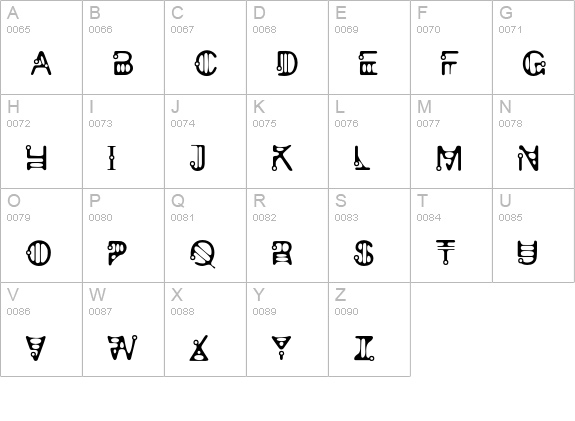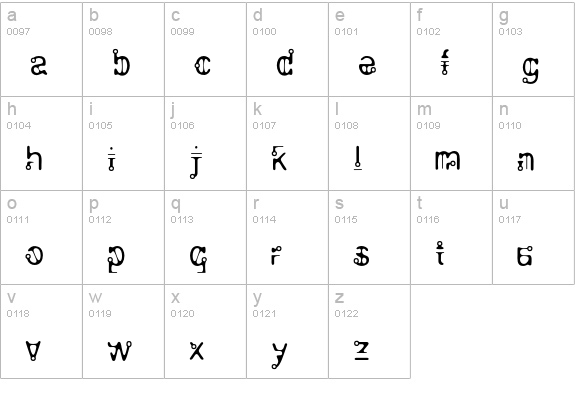
Introducing Generator font, a versatile and modern typeface that is sure to make your designs stand out. This sleek and sophisticated font features clean lines and a stylish aesthetic, making it perfect for a wide range of projects. Whether you're creating a logo, branding materials, or website design, Generator font will add a touch of elegance to your work. What's even better is that Generator font is completely free to download at FontsMarket.com. Yes, you read that right - you can get your hands on this premium font without spending a dime. So why wait? Elevate your designs with Generator font today and experience the difference it can make.